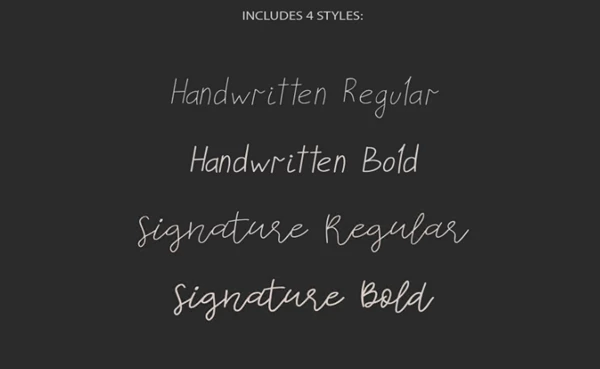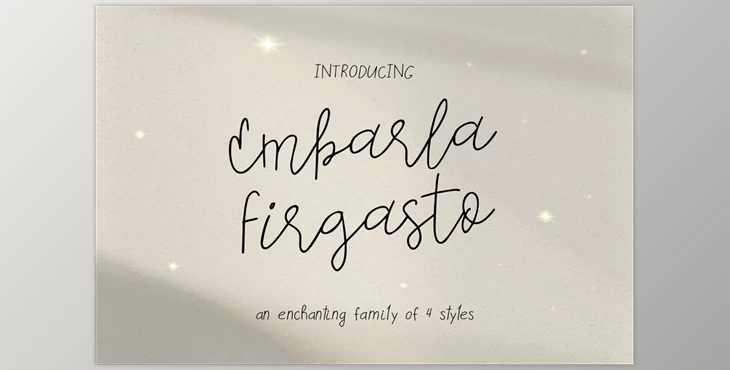
Embarla Firgasto Font Family: Introducing Embarla Firgasto, a captivating family of four fonts that seamlessly complement each other for a variety of design applications. This versatile font family includes Handwritten Regular, Handwritten Bold, Signature Regular, and Signature Bold styles, all available in OTF, TTF, WOFF, and WOFF2 formats. Embarla Firgasto offers a complete set of uppercase and lowercase letters, standard punctuation, and special characters supporting most European languages. Perfect for infusing your projects with elegance and charm, this font family is ideal for branding, logos, invitations, and more.
How can we give our text projects a beautiful handwritten look?
You can use "Embarla Firgasto Font Family."
"Embarla Firgasto Font Family" Samples: